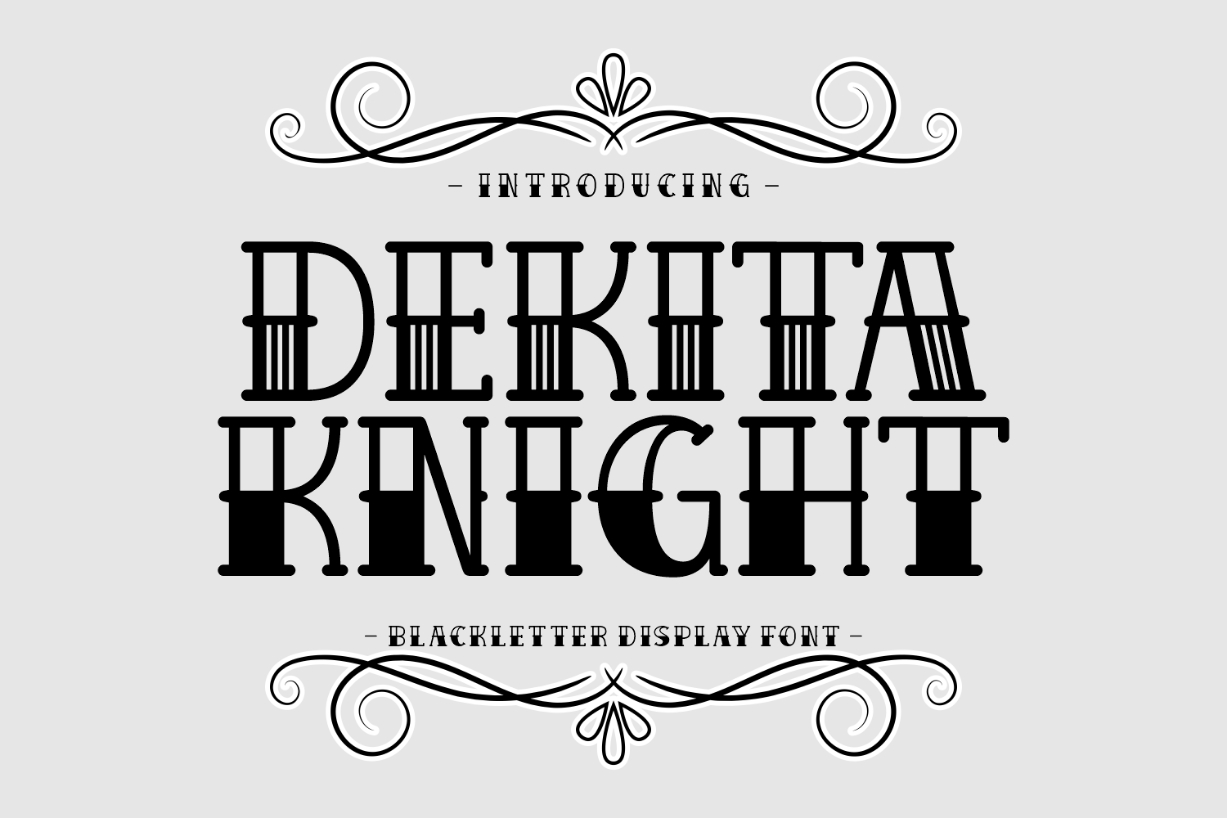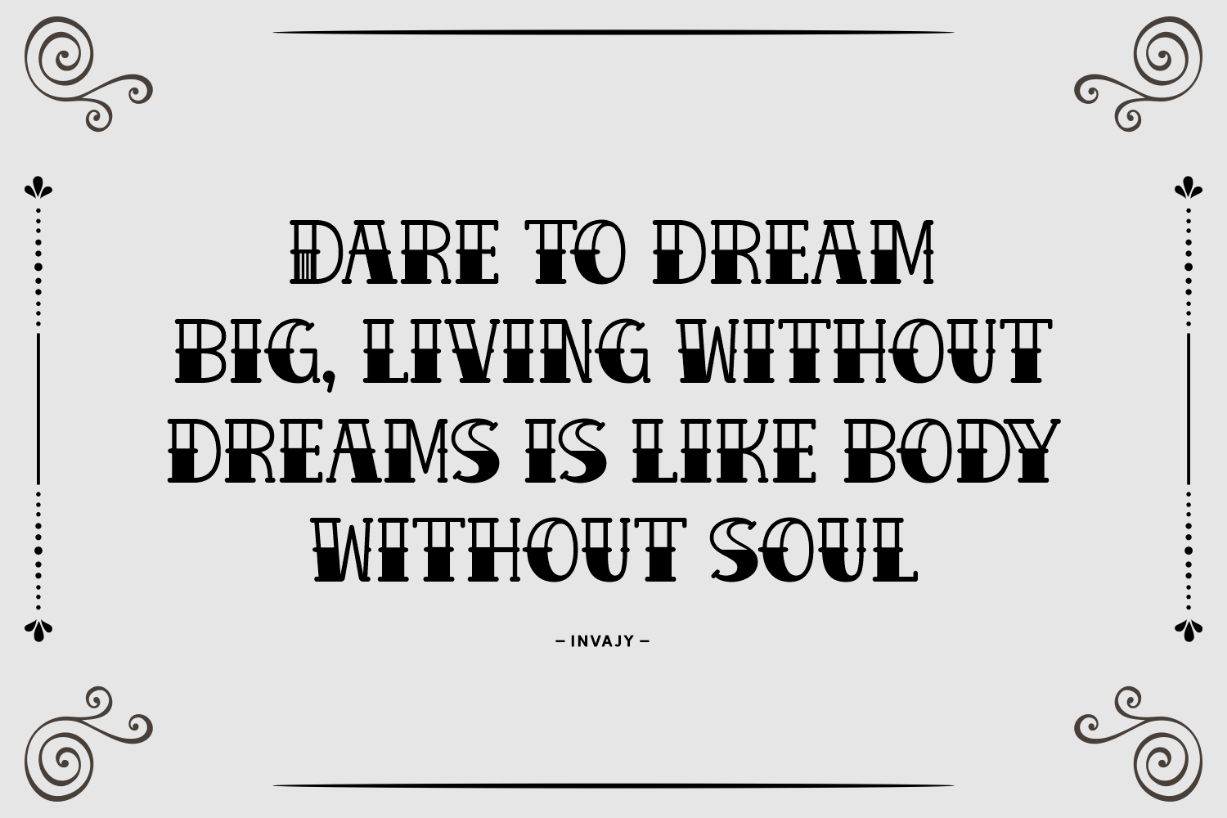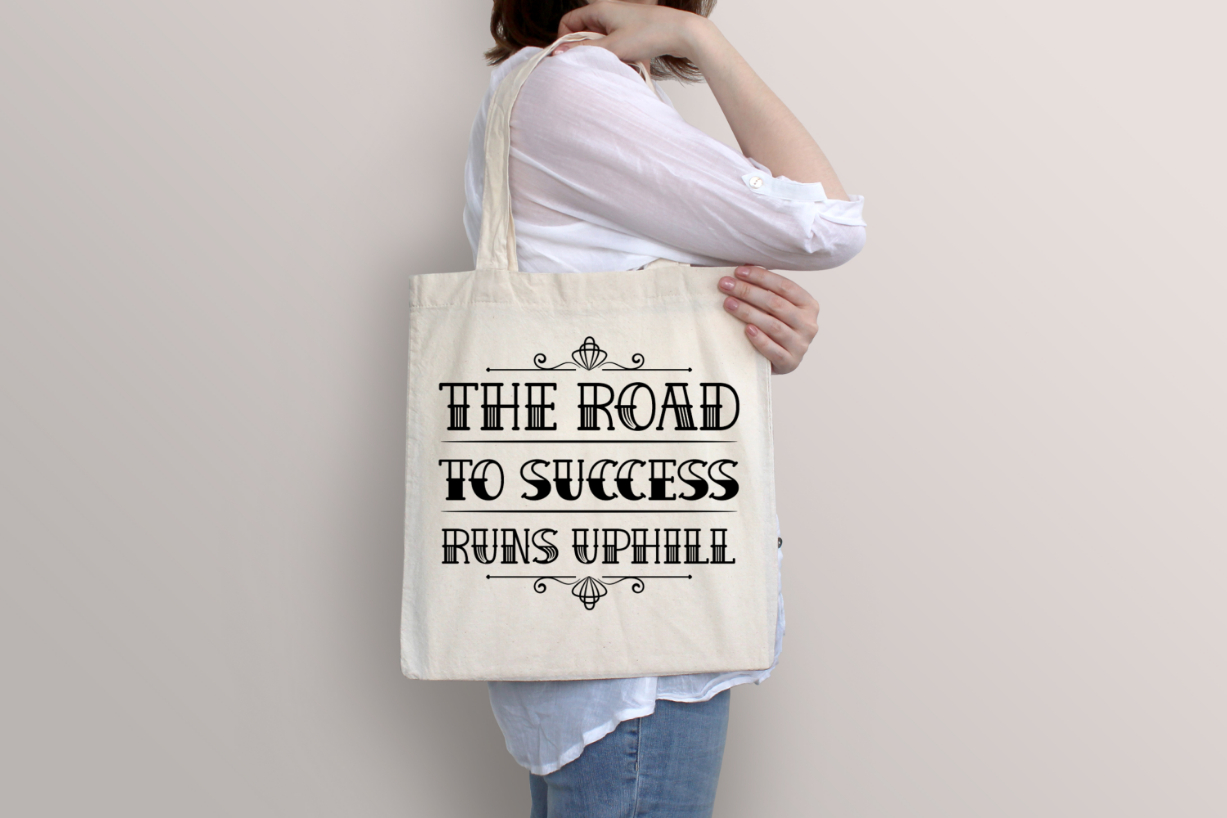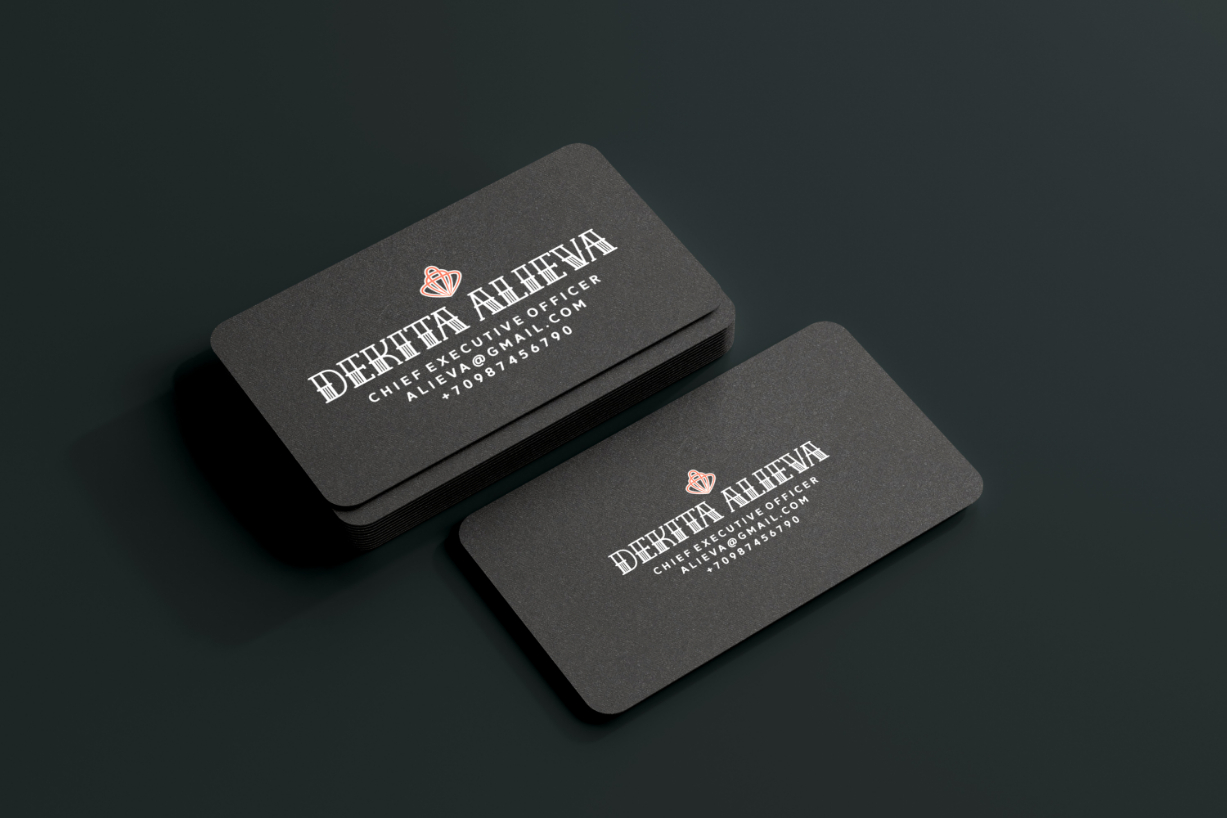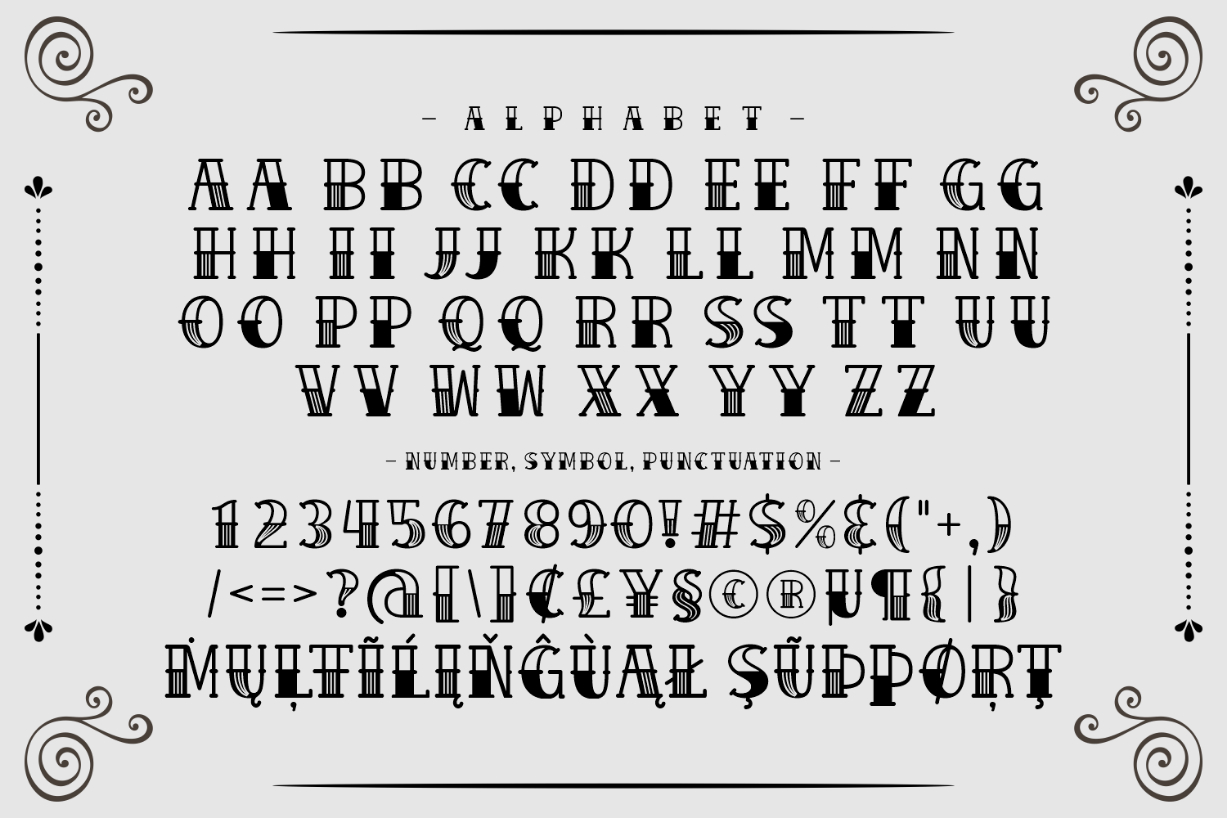
Dekita Knight Font
About Dekita Knight Font
Dekita Knight is a unique and remarkable blackletter font. Make your typography designs stand out with this captivating font. It has everything you need to create a bold and striking look. Add it to your fonts library, and use it for headers, titles, posters, t-shirts, banners, cards, and more.